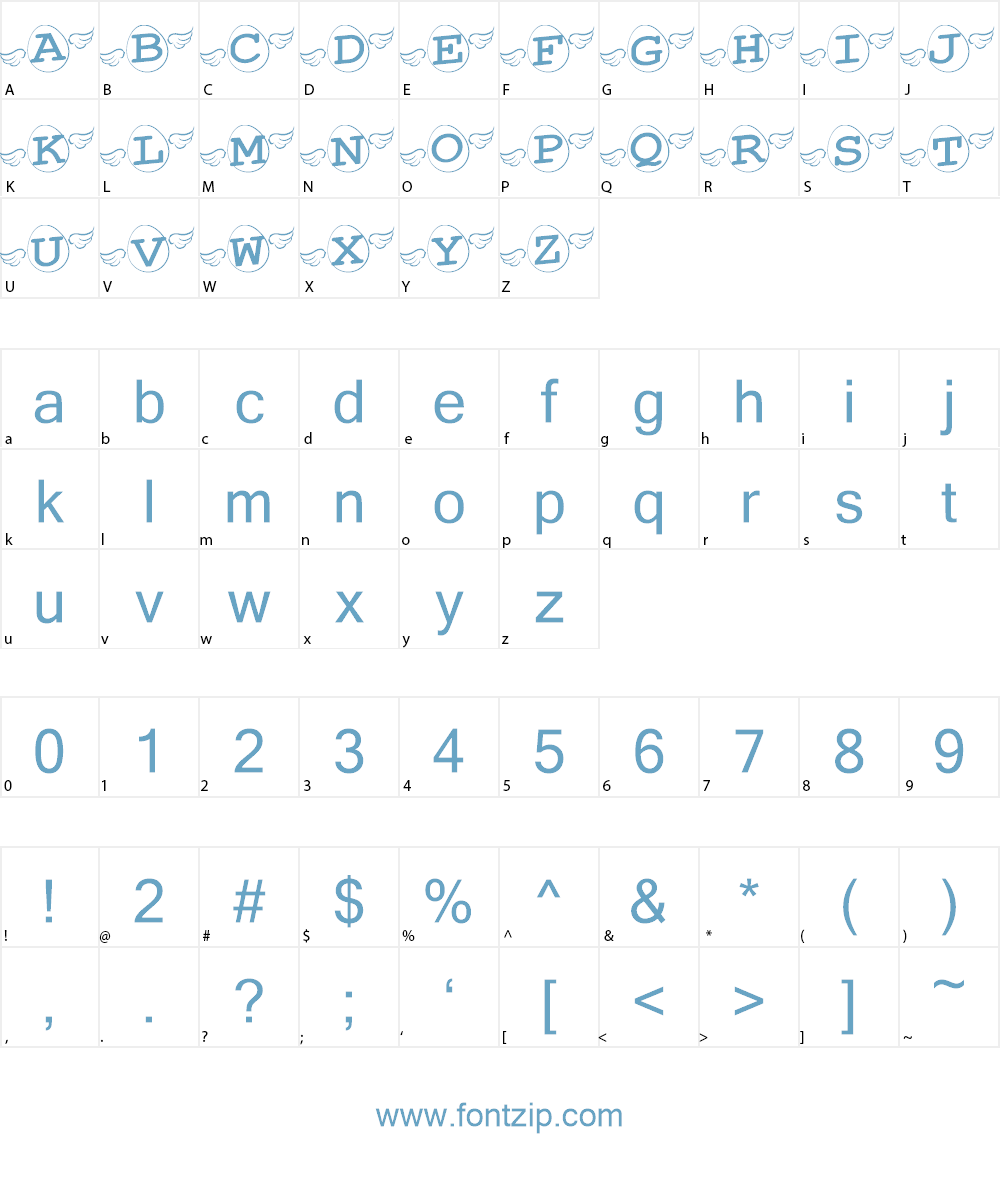
This Japanese designer had sites named Strawberry Bomb, Milkie Colour, and Kirie, all defunct. The same font was also named KFAngel Egg (the KF presumably for Kirie Font)